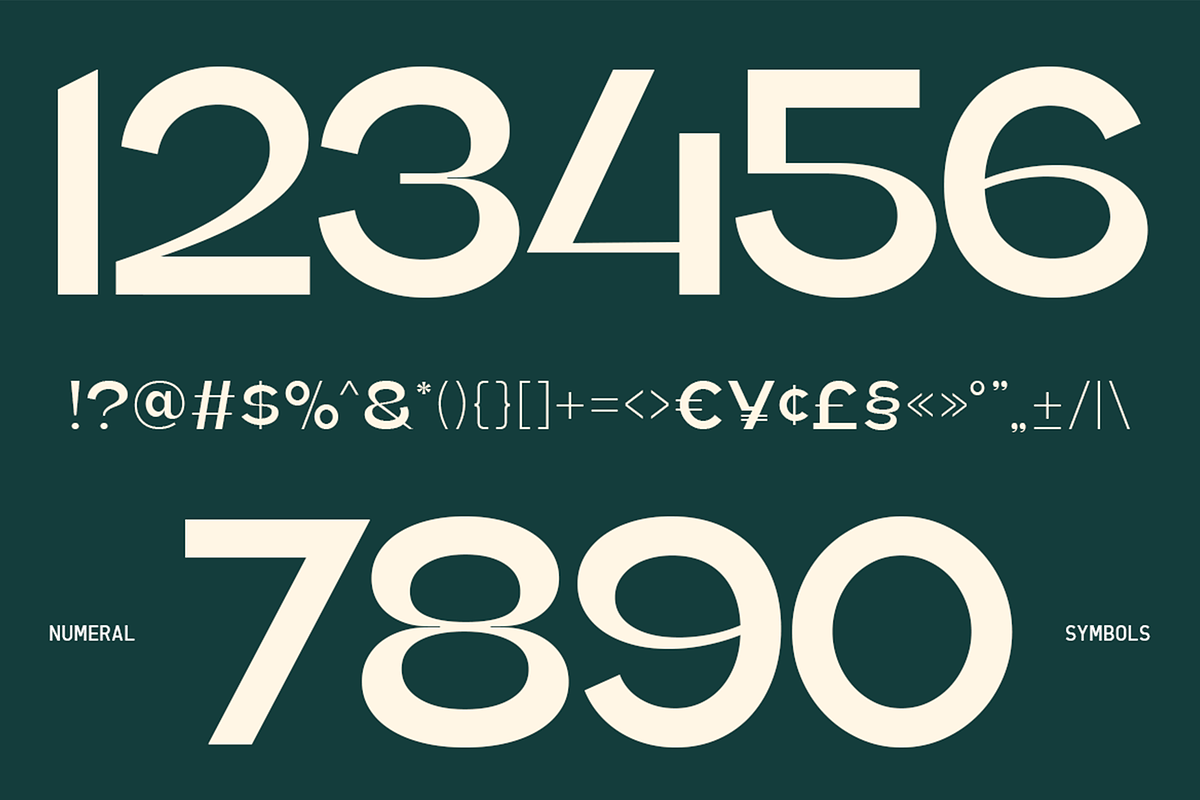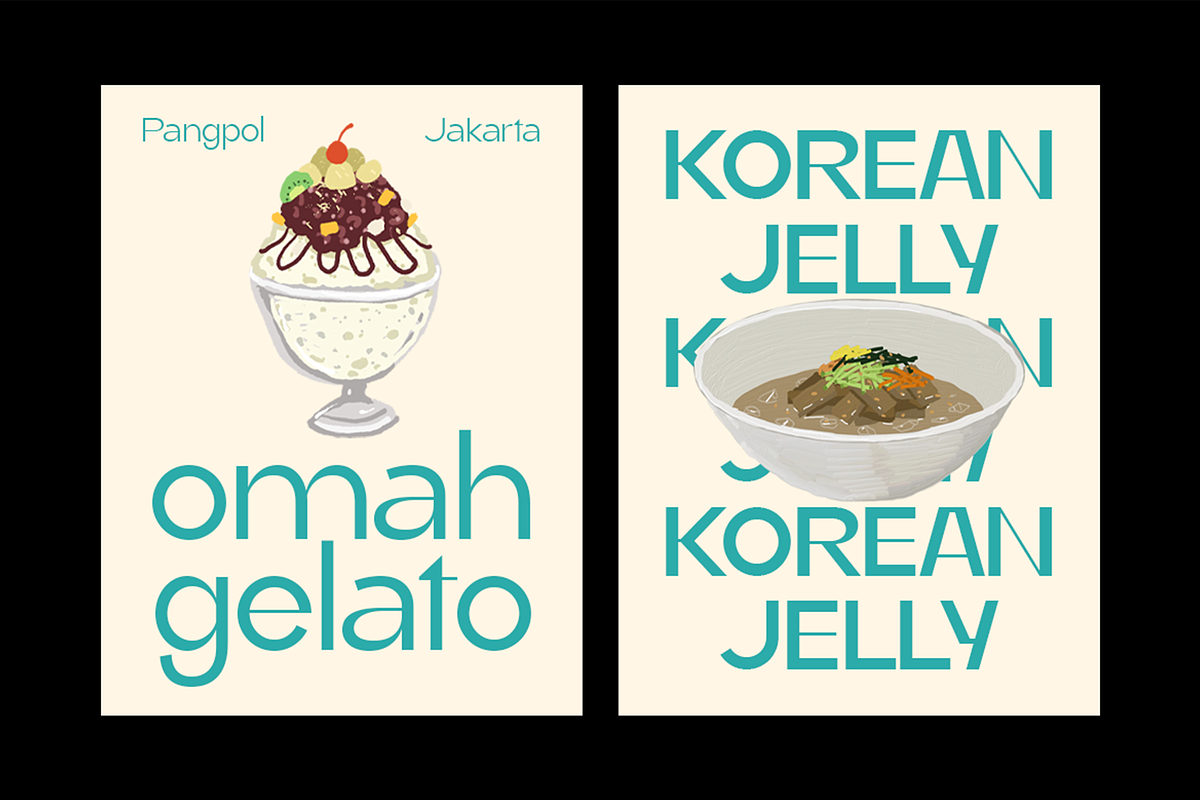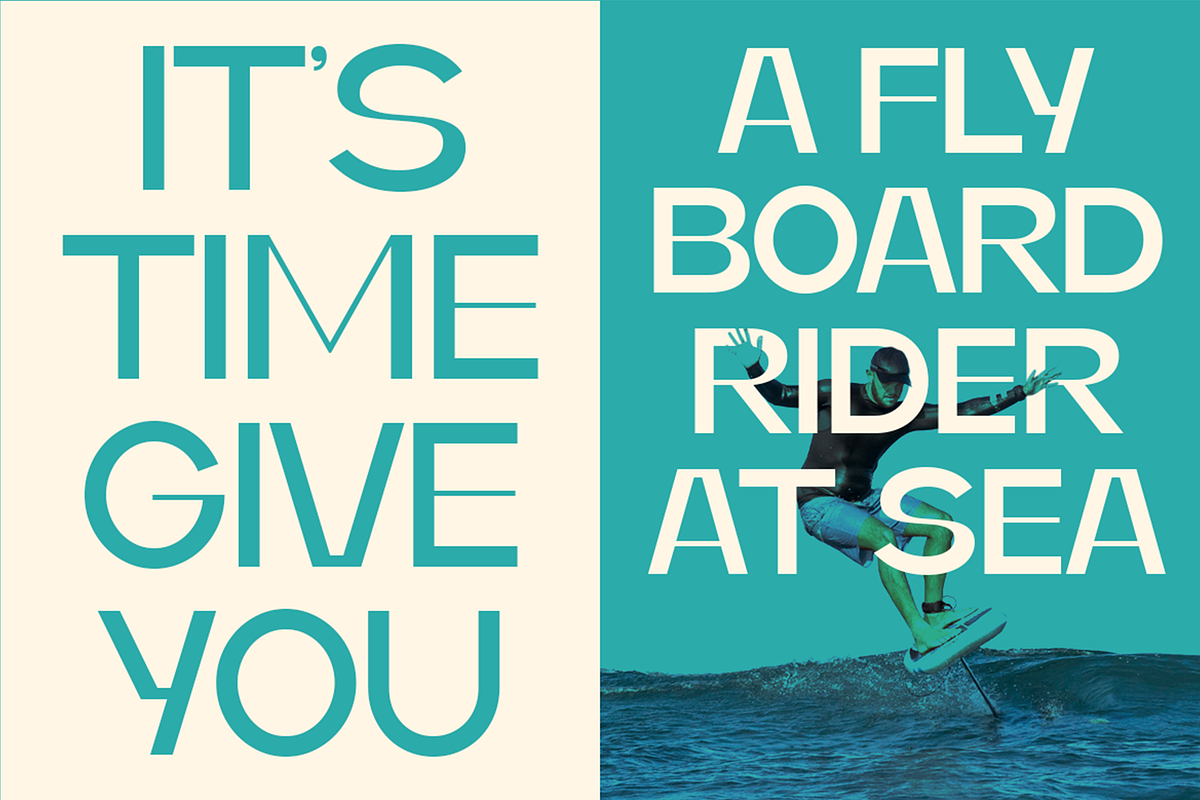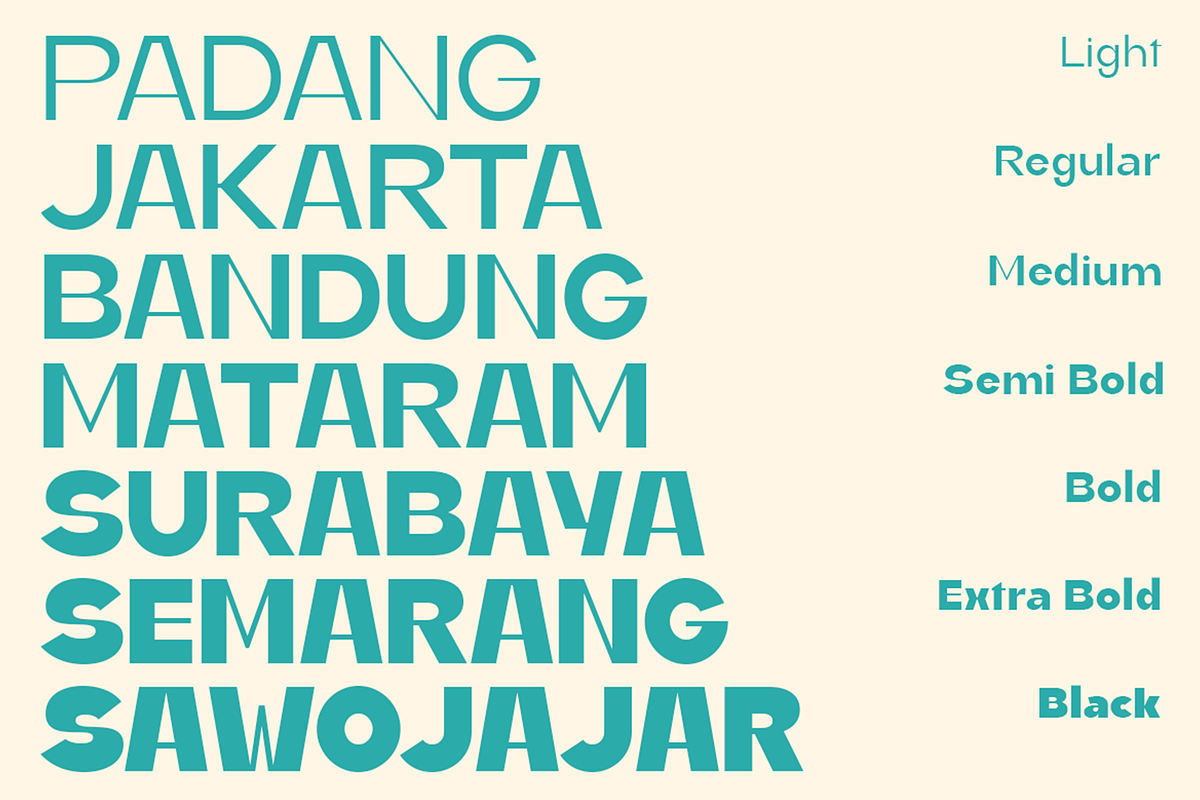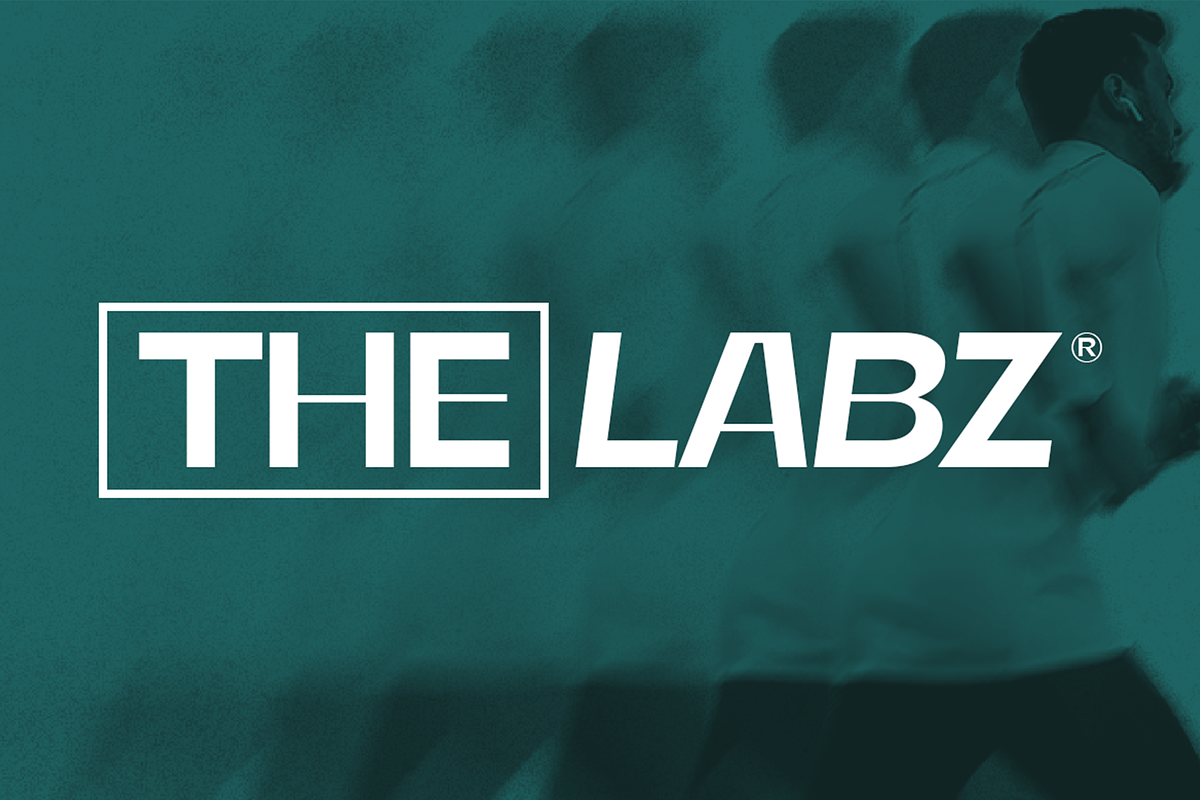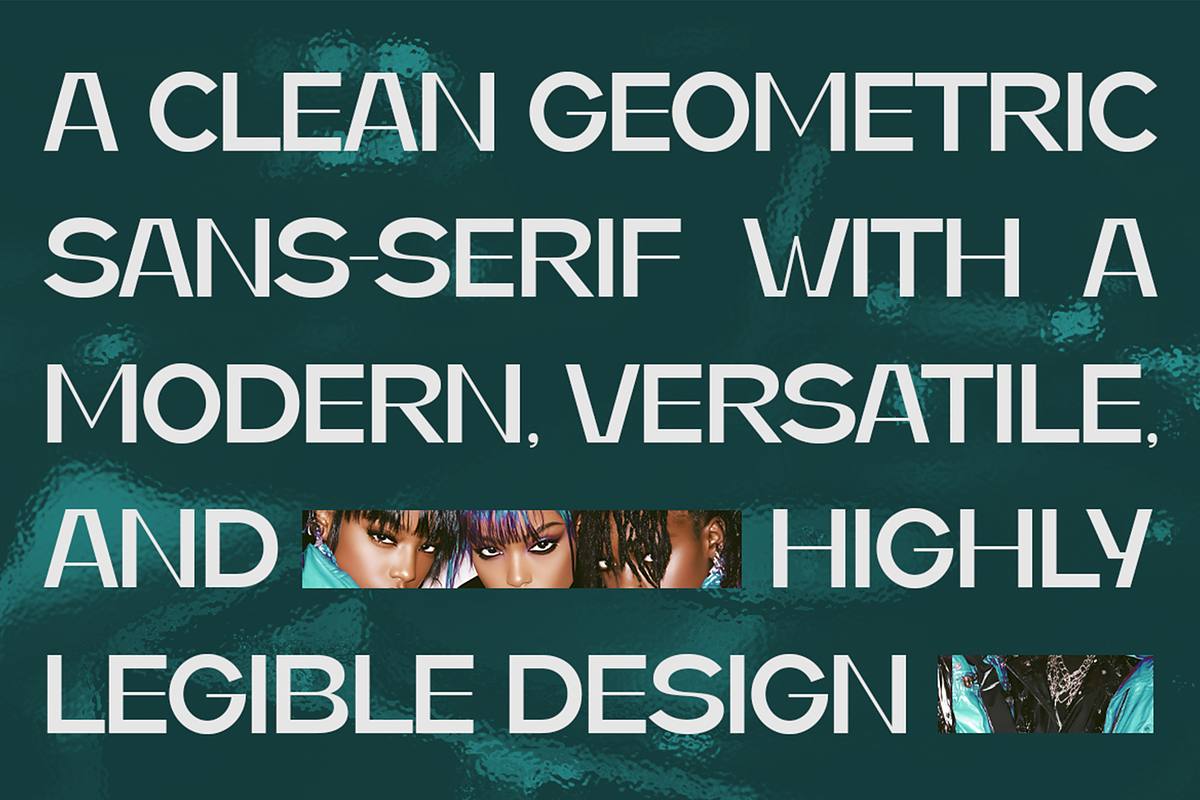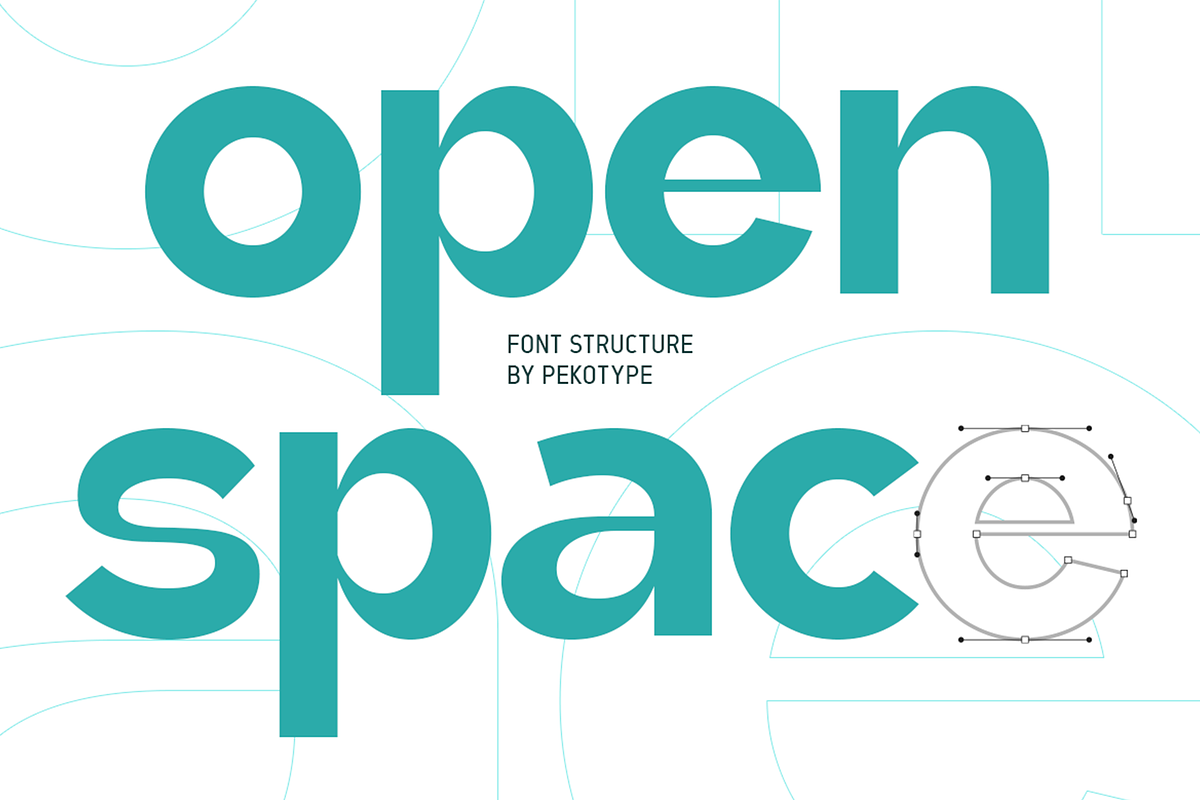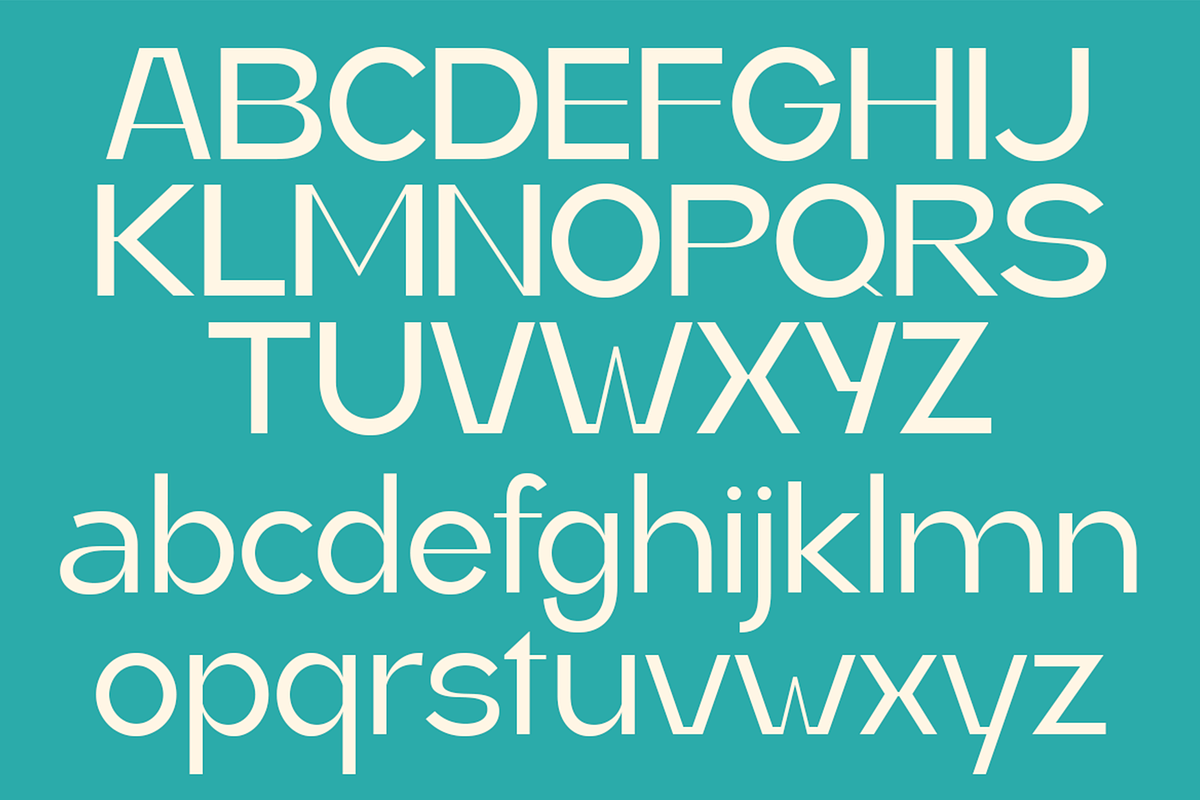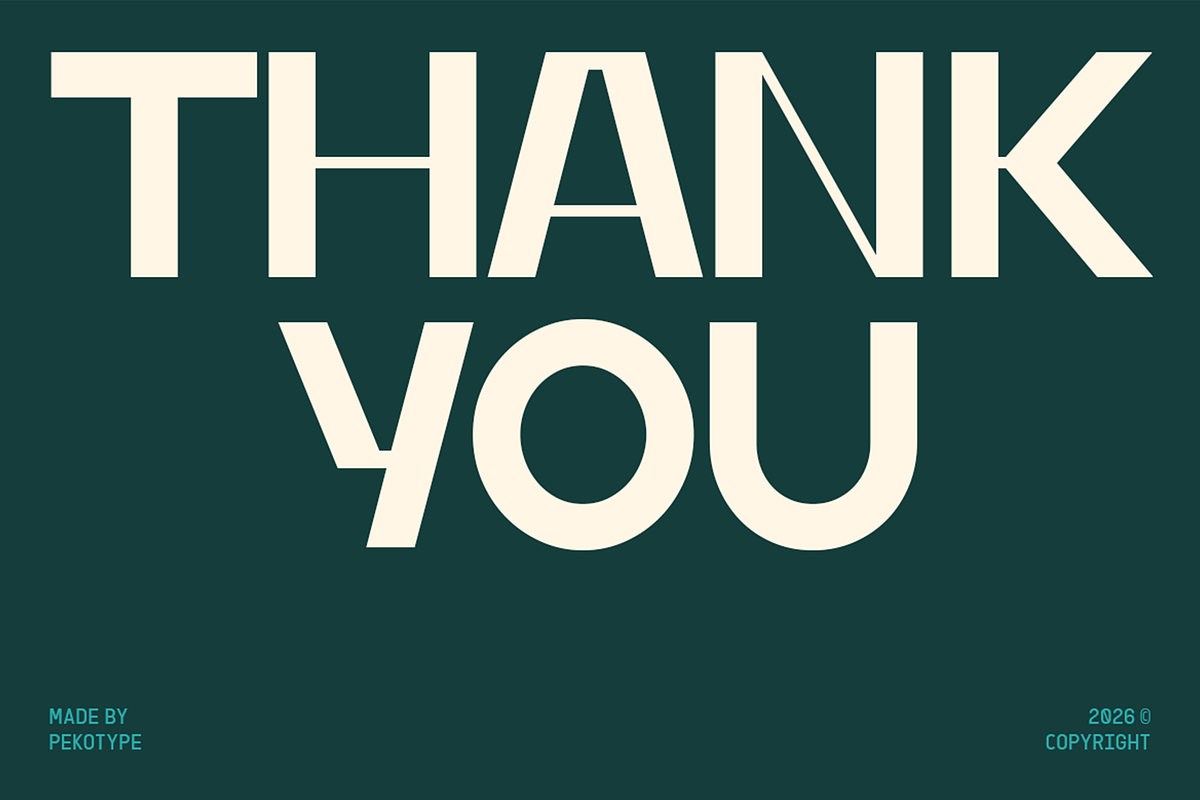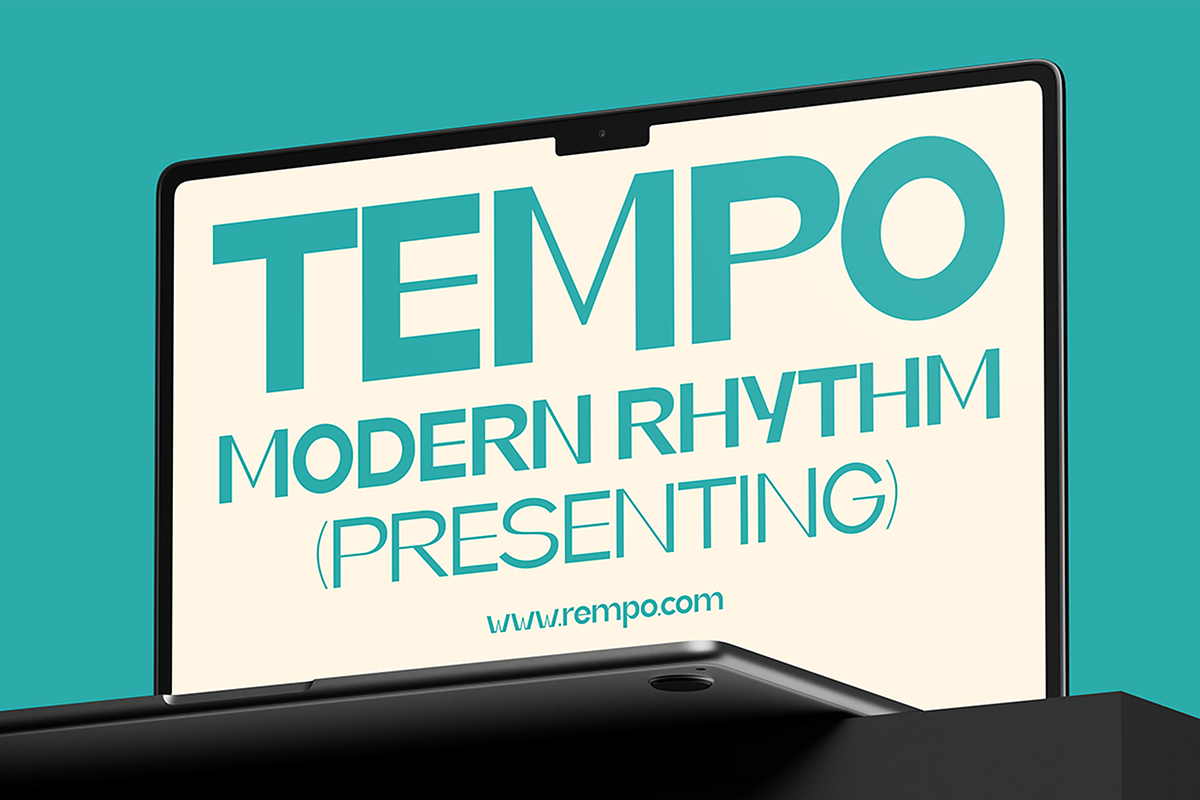
Koera - High Contrast Font Family
Koera is a modern high-contrast display font family that mixes clean geometry with elegant contrast. With multiple weights and a sharp, stylish look, it works great for both bold headlines and refined layouts while keeping your typography clear and eye-catching.
Perfect for branding, logos, editorial layouts, fashion campaigns, posters, packaging, websites, social media, creative studios, cafés, lifestyle brands, presentations, and modern visual identities. If you want a display font family that feels fresh, versatile, and easy to use, Koera is ready for the job.
* Uppercase & Lowercase
* Numbers, Symbols, & Punctuation
* Multilingual